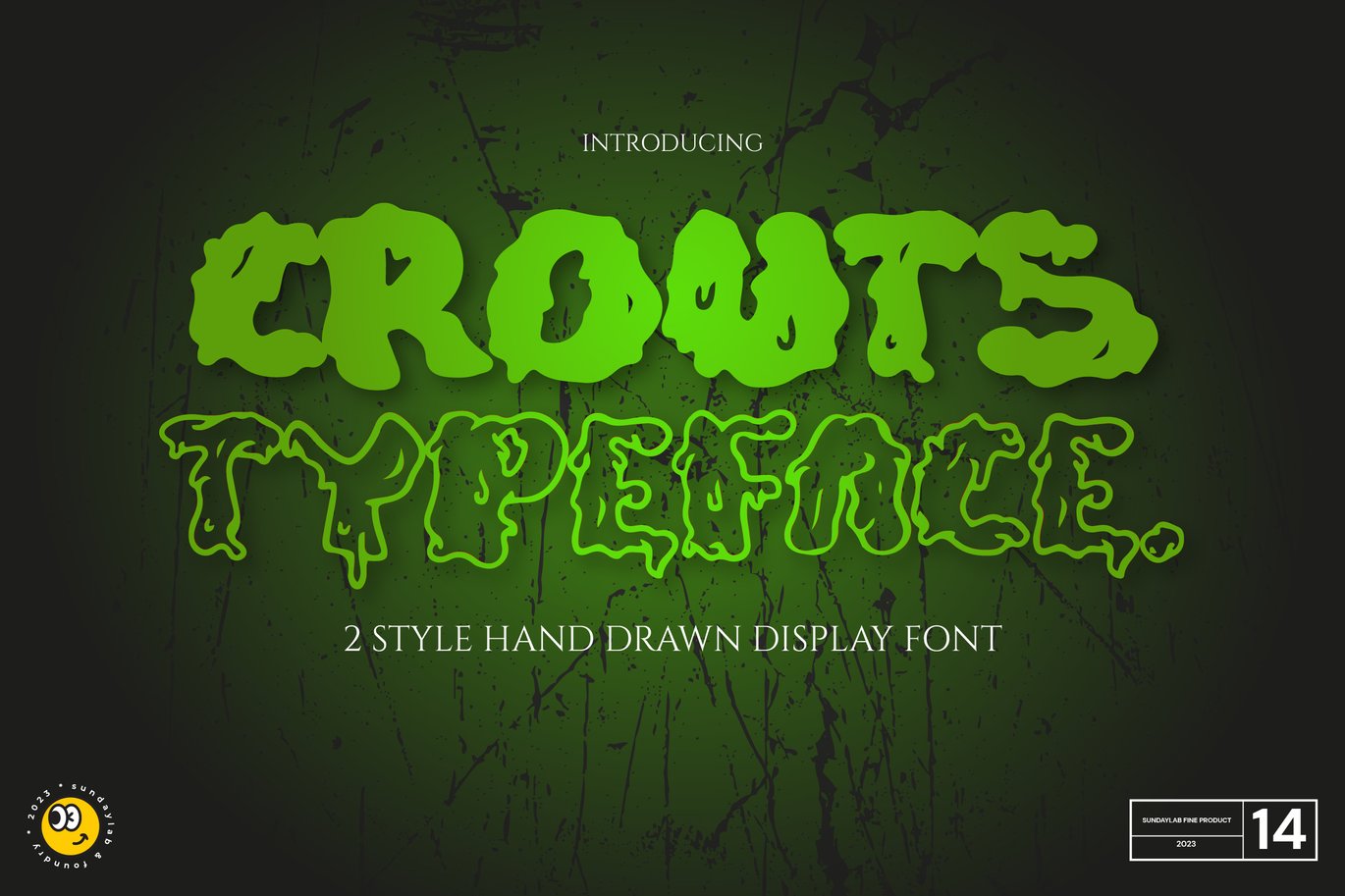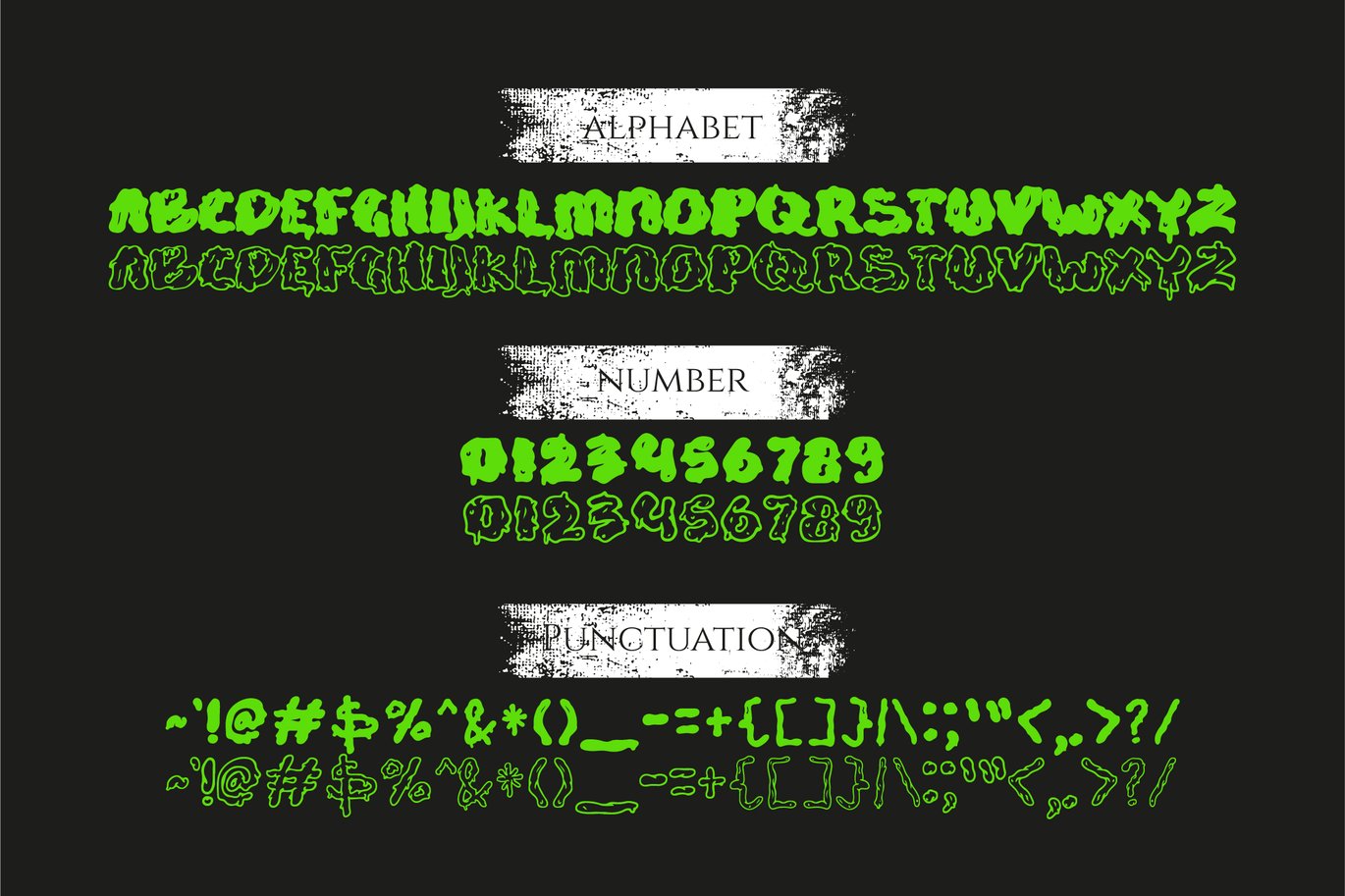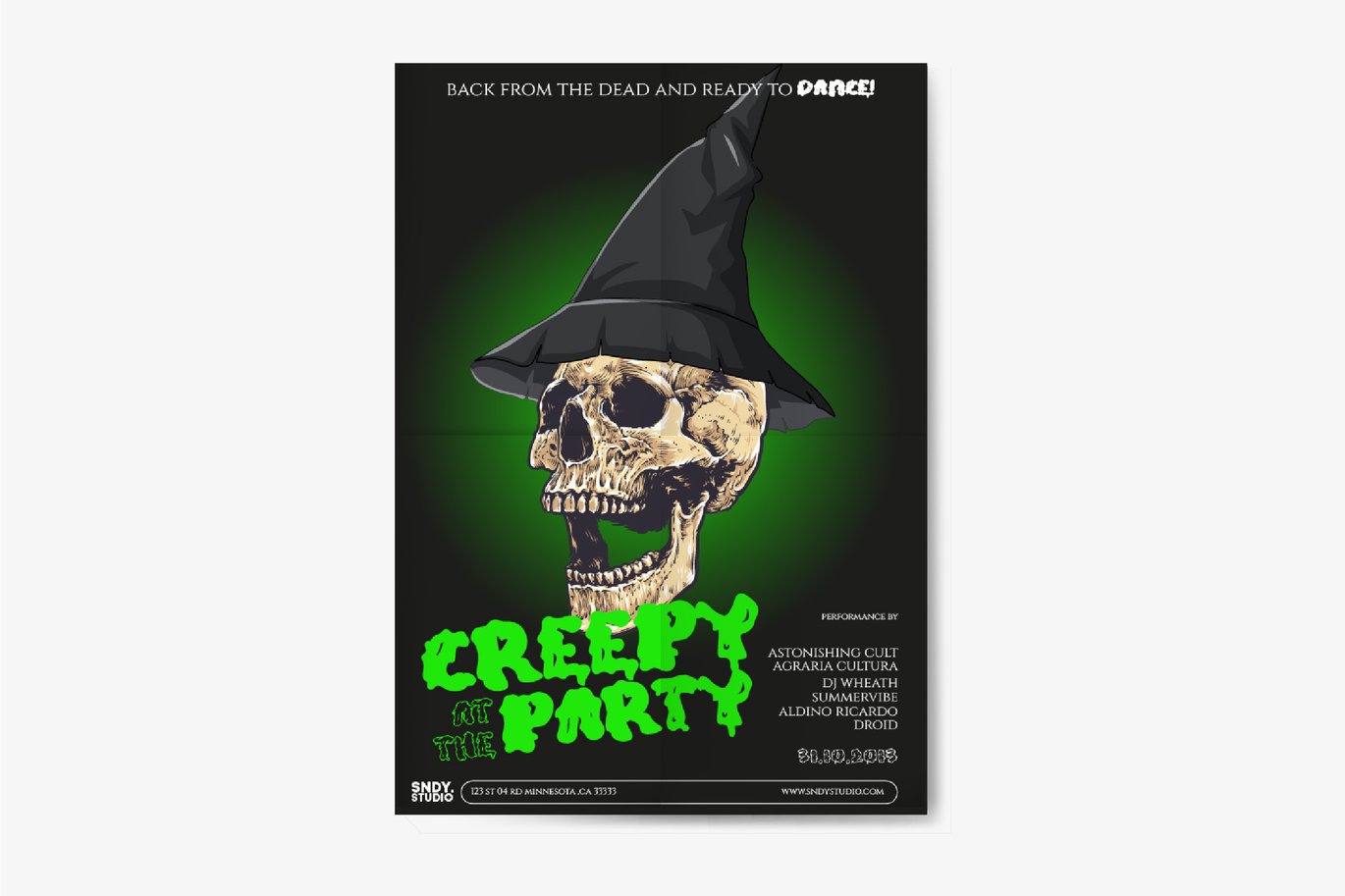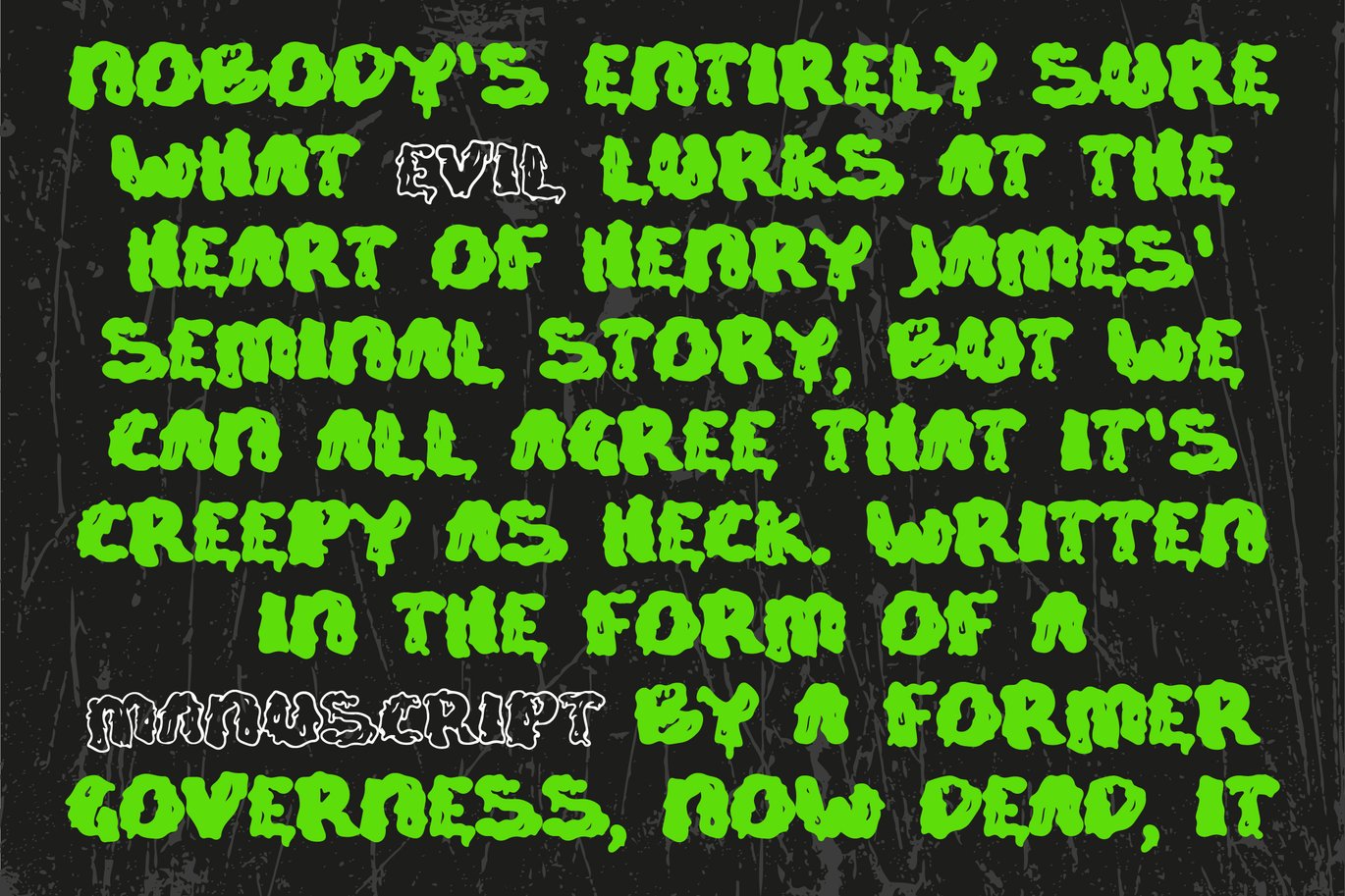
Crouts Typeface
Introducing
Crouts Typeface
Crouts Typeface is a display font that can help display messages in the designs you create. With its horror slimey character, it is suitable for you to use on posters, flyers, magazine covers, books, vinyl, CDs, and many other media.